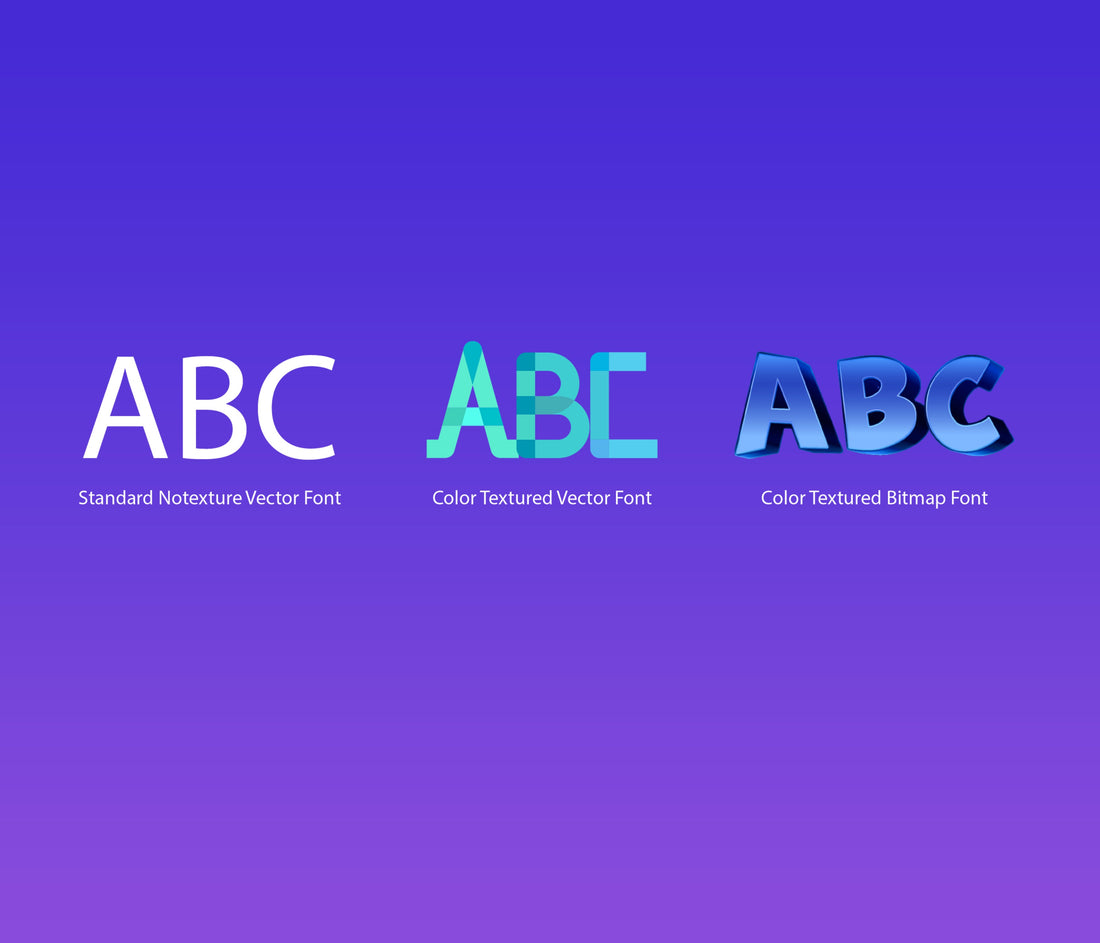
Exploring Textured Fonts
What Are Textured Fonts?
They're the next big trend in graphic design. These fonts add lots of colors, shades, textures, and see-through effects to letters. They put together vector shapes and pictures into the font files, making letters look really cool and detailed.
Textured fonts are transforming digital typography by introducing complex visual elements into font files. With advancements in font technology, textured fonts are now accessible to a wide audience of designers, enriching their creative projects with unique graphic details.
Textured fonts can enhance all kinds of text because they can include any kind of character, like emojis and icons, making them versatile for various design uses.
Textured fonts, also accurately called chromatic fonts, can range from multi-colored and shaded to single-tone designs, encompassing a variety of visual styles within font files, including characters of different colors and textures.
What's Inside Textured Fonts?
A textured font file is essentially a standard font file but includes extra data for displaying more than just the character outlines—think textures and depth. Traditionally stored as SVG data within OpenType formats, these files can incorporate color, gradients, and even pictures, leading to a rich variety of font styles known as OpenType-SVG fonts. Though it sounds straightforward, the reality is much more nuanced, with a rich history behind the development of these advanced fonts.
The OpenType-SVG font format, a collaborative creation by Mozilla & Adobe, was standardized in early 2016 with support from major tech companies like Microsoft & Google, making it the industry standard for textured fonts. This format, alongside others developed by Apple and various companies for emojis and specialized uses in gaming, video, or print, supports intricate graphic details within fonts. There are four main formats: SBIX, COLR, CBDT, and SVG, each with unique features:
The design world is currently navigating through a phase of adjustment because of the various and incompatible formats for textured fonts, necessitating the use of multiple font formats to achieve compatibility across different operating systems, browsers, and applications. This transitional period is marked by efforts to ensure that designs remain consistent and accessible on all platforms.
OpenType-SVG is well-positioned to become the preferred standard for textured fonts, thanks to its support across major platforms including Windows 11, macOS Sonoma, and iOS 17. This widespread adoption suggests a promising future for OpenType-SVG in achieving uniformity in digital typography.
To address compatibility issues with older software, textured fonts can incorporate alternate vector shape data as a fallback. This ensures that if the software doesn't support the embedded textured formats, the fonts will still display properly using basic vector shapes.
Where's The Catch?
What about file size?
A textured font file tends to be bulkier than a standard font file, especially when it includes high-resolution textures or images.
Typically, fonts are quite light, ranging from a few tens to several hundred kilobytes. However, textured vector fonts might span from several hundred kilobytes to a few megabytes, influenced by their design intricacy.
Textured bitmap fonts can vary significantly in size, from a few megabytes to several tens of megabytes, with file sizes expanding as more textured font formats are combined into one file.
*Please be aware that the textured font file, whether it is a BITMAP font or an SVG color textured font, has a large size.
And regarding text scalability?
That's an important point! Textured fonts that use vector-based graphics scale flawlessly without any quality loss, just like traditional vector fonts.
Textured bitmap fonts, similar to any photo or pixel-based image, will scale correctly up to a specific size based on their original resolution. If you go beyond that size, the text will start to look pixelated.
So, whether you're printing text with a textured bitmap font or displaying it on high-resolution screens, it's necessary to determine the maximum size it can scale to without losing quality.
Given the varied uses of textured bitmap fonts, from web to print, designers will need multiple versions of the font files. This includes full-size images for desktop editing and downscaled versions for web use, ensuring optimal display across different mediums.
Where Can They Be Used?
With OpenType-SVG now established as the industry standard, there's a strong likelihood you can begin integrating textured fonts into your preferred software and hardware.